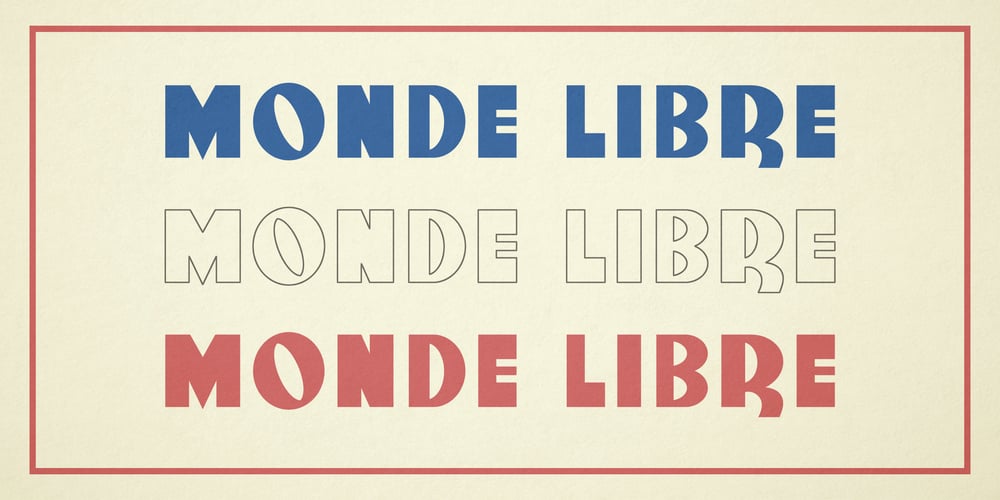
Monde Libre
Monde Libre font
Monde Libre Font Family was designed by Elyas Beria and published by Elyas Beria. Monde Libre contains 3 styles and family package options. Monde Libre is a display typeface that exudes optimism, joy, and whimsy. I designed this typeface based on a sign in a clip from some old film footage I saw somewhere. It stayed with me as a typeface that evokes the France of my dreams. Enjoy!